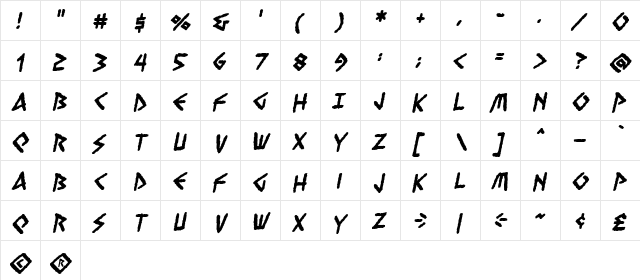
Vengeful Gods BB Bold
| Foundry | Nate Piekos. Blambot.com |
| Designer | Nate Piekos |
Design Context for Vengeful Gods BB Typeface
Vengeful Gods BB is a composed and adaptable typeface that performs quietly and consistently across a wide range of design contexts. The heavy weight commands attention and anchors typographic hierarchies.